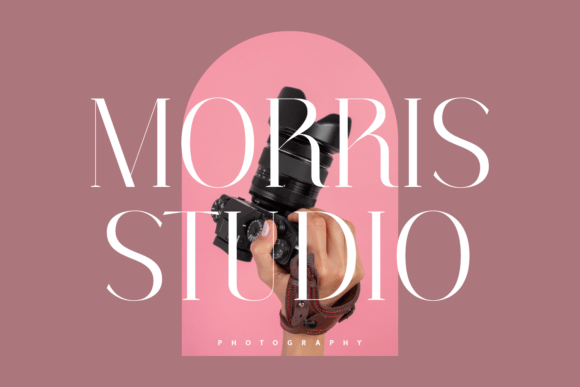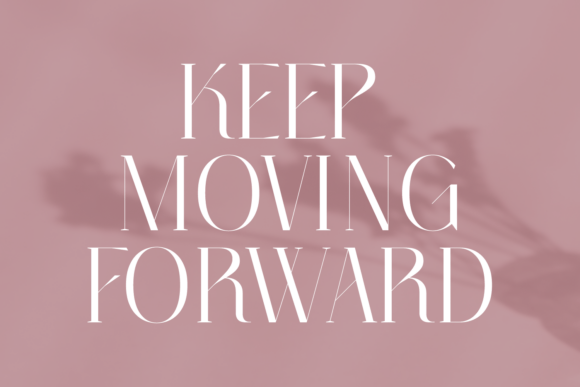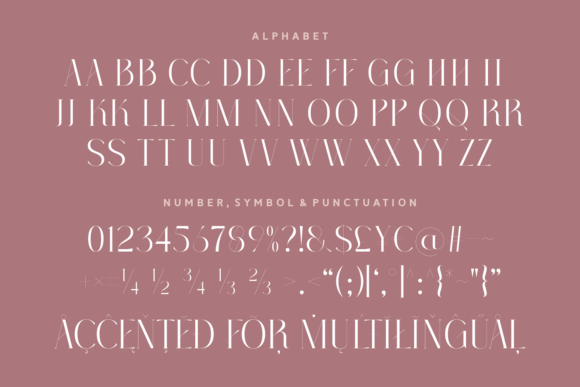
Introducing Creative Values Font: Elevate Your Design with Elegance and Sophistication
In the world of typography, fonts play a crucial role in conveying the tone and personality of a brand or design. For designers and crafters seeking to add a touch of luxury and sophistication to their work, the Creative Values font is an exceptional choice. This ultra-modern serif font boasts sleek, elongated letterforms and high contrast strokes, making it perfect for fashion editorials, upscale branding, wedding invitations, and luxury packaging.
What Makes Creative Values Font Stand Out?
Creative Values is a graceful and elegant typeface that exudes refinement and poise. Its minimalist yet artistic aesthetic sets it apart from other fonts, making it an excellent addition to any design project. The font’s high contrast strokes and sleek letterforms create a visually striking effect, adding a level of sophistication to any design.
Key Features of Creative Values Font
- Ultra-modern serif font: Creative Values boasts a contemporary design with a classic serif twist, making it perfect for designers seeking a fresh and elegant look.
- Sleek, elongated letterforms: The font’s elongated letterforms create a sense of luxury and refinement, adding a touch of sophistication to any design.
- High contrast strokes: The high contrast strokes in Creative Values add depth and visual interest to the font, making it perfect for headlines, titles, and other design elements.
- Minimalist yet artistic aesthetic: The font’s minimalist design ensures that it remains elegant and refined, while its artistic aesthetic adds a touch of creativity and flair.
Perfect for Luxury Design Projects
Creative Values font is ideal for designers and crafters working on luxury design projects. Its elegant and sophisticated design makes it perfect for:
- Fashion editorials: Add a touch of luxury and glamour to your fashion editorials with Creative Values font.
- Upscale branding: Elevate your brand’s visual identity with a refined and sophisticated font that exudes luxury and elegance.
- Wedding invitations: Make your wedding invitations truly special with a beautiful and elegant font that sets the tone for a luxurious celebration.
- Luxury packaging: Add a touch of sophistication to your luxury packaging with Creative Values font, perfect for high-end products and brands.
Tips for Using Creative Values Font
To get the most out of Creative Values font, here are some tips to keep in mind:
- Use it as a headline font: Creative Values font is perfect for headlines and titles, where its elegant and sophisticated design can make a real impact.
- Pair it with a sans-serif font: For body text, consider pairing Creative Values font with a clean and simple sans-serif font to create a beautiful contrast.
- Experiment with font sizes: Don’t be afraid to experiment with different font sizes to create visual interest and hierarchy in your design.
In conclusion, Creative Values font is an exceptional choice for designers and crafters seeking to add a touch of luxury and sophistication to their work. Its elegant and refined design, combined with its ultra-modern serif style and high contrast strokes, make it perfect for a range of luxury design projects. Whether you’re working on fashion editorials, upscale branding, wedding invitations, or luxury packaging, Creative Values font is sure to elevate your design with a refined and sophisticated touch.